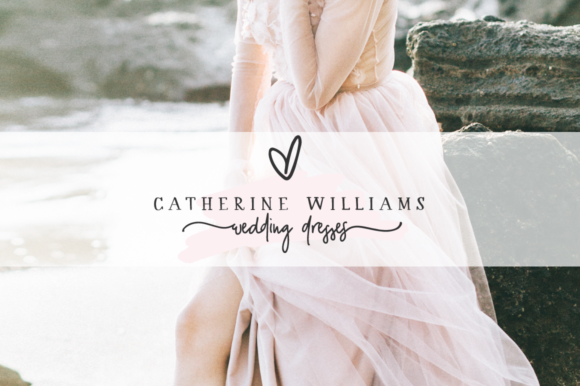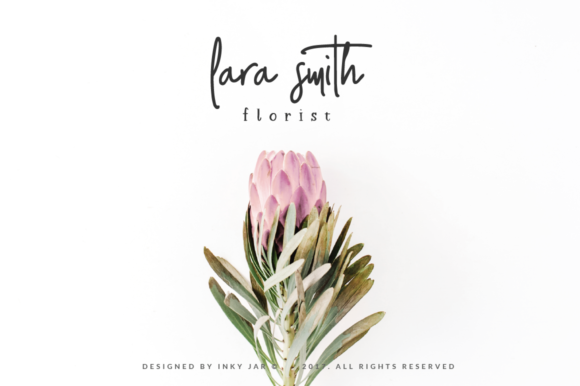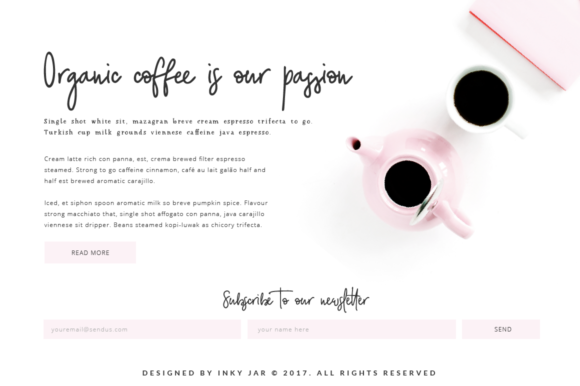
The Ultimate Branding Bundle: Unleashing the Power of Glorious Duo Font
I’ll never forget the struggle I faced while working on a branding project for a new coffee shop. My client wanted a unique, handcrafted feel, but I was stuck with a bland, generic font that just wouldn’t cut it. That’s when I discovered the Glorious Duo Font, a game-changing combo that includes a signature style monoline script font, a handwritten serif font, and a doodle font packed with hand-drawn shapes. In this article, I’ll share my experience with this incredible font bundle and provide a comprehensive guide on how to make the most of its features.
An Honest Review: What I Love and What I Don’t
- ✅ The Glorious Duo Font is an incredibly versatile bundle that offers a wide range of creative possibilities.
- ✅ The monoline script font is elegant and sophisticated, perfect for high-end branding projects.
- ✅ The handwritten serif font adds a touch of warmth and personality to any design.
- ✅ The doodle font is a treasure trove of hand-drawn shapes and illustrations, ideal for adding a playful touch to your designs.
Small Quirks and Limitations 🤔
- ⚠️ The font bundle can be overwhelming for beginners, with so many options and features to explore.
- ⚠️ Some users may find the doodle font a bit too playful or childish for certain projects.
The Designer Inspiration Behind Glorious Duo Font
The Glorious Duo Font was created with the goal of providing designers with a versatile, high-quality font bundle that could be used for a wide range of projects. The designer, inspired by the world of art and illustration, aimed to create a font that would allow users to add a touch of personality and whimsy to their designs.